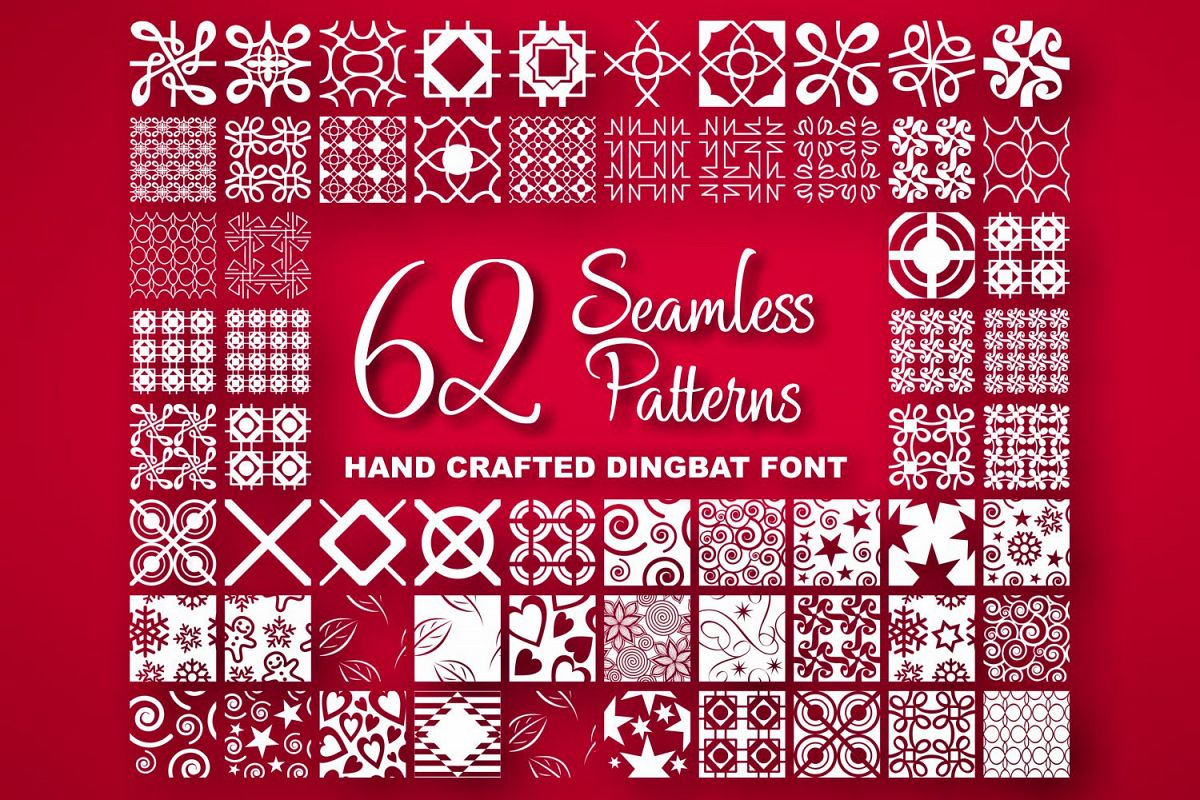
Seamless Pattern Dingbat Font
Introducing Seamless Patterns Dingbat font.
Full font contains 62 repeatable seamless patterns - just type A-Z or a-z letters or numbers 0-9 on keyboard.
Seamless Pattern is great for product packaging, cards or wedding stationarie designs.